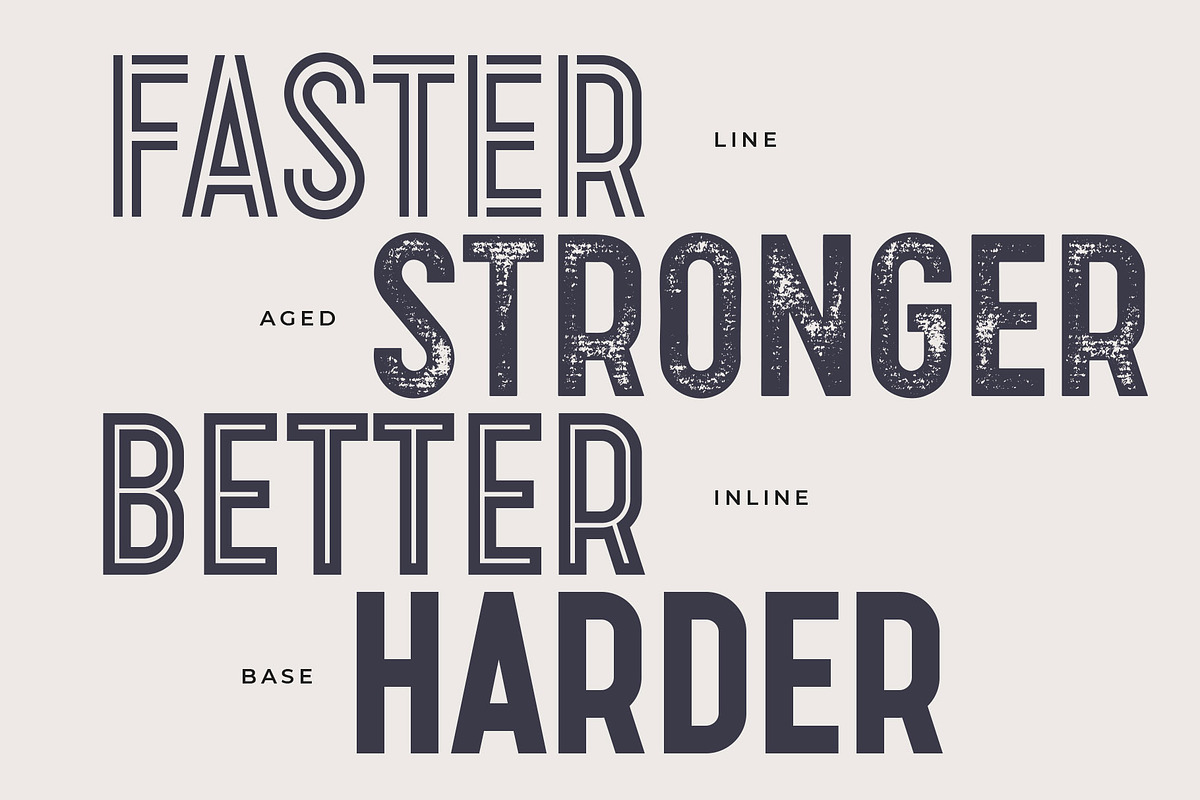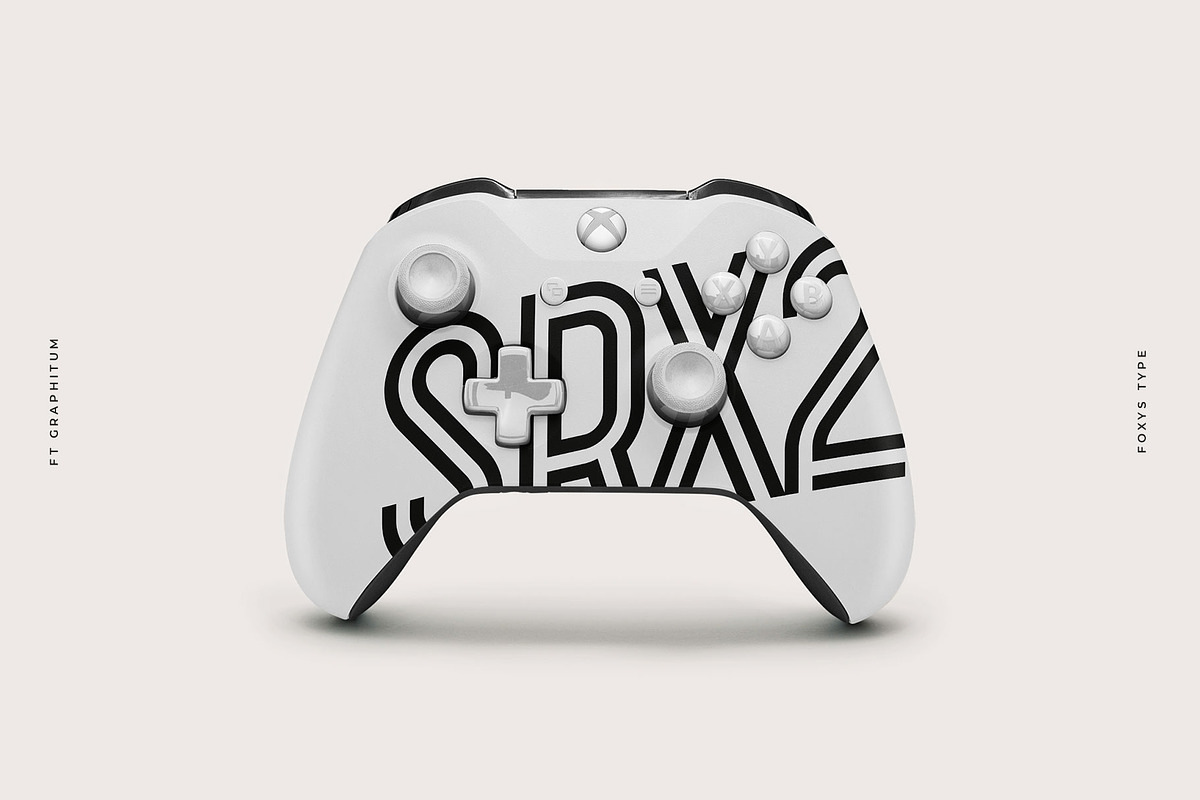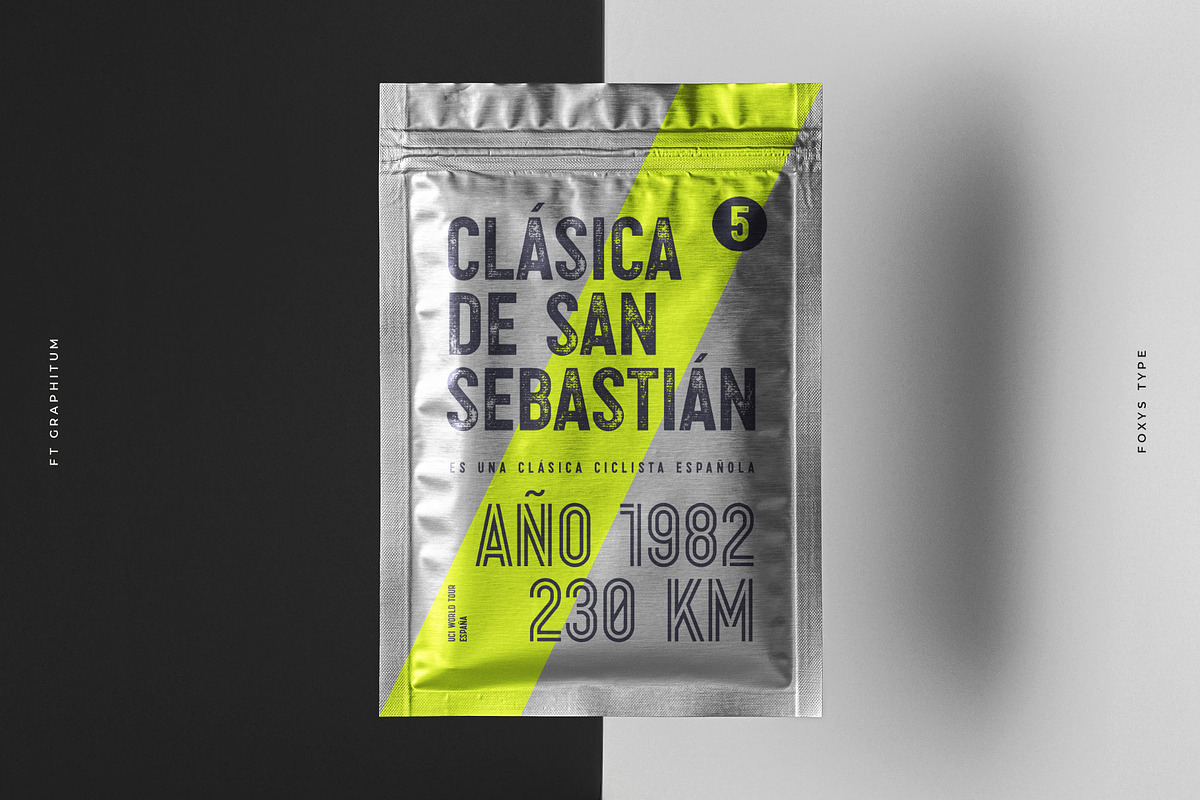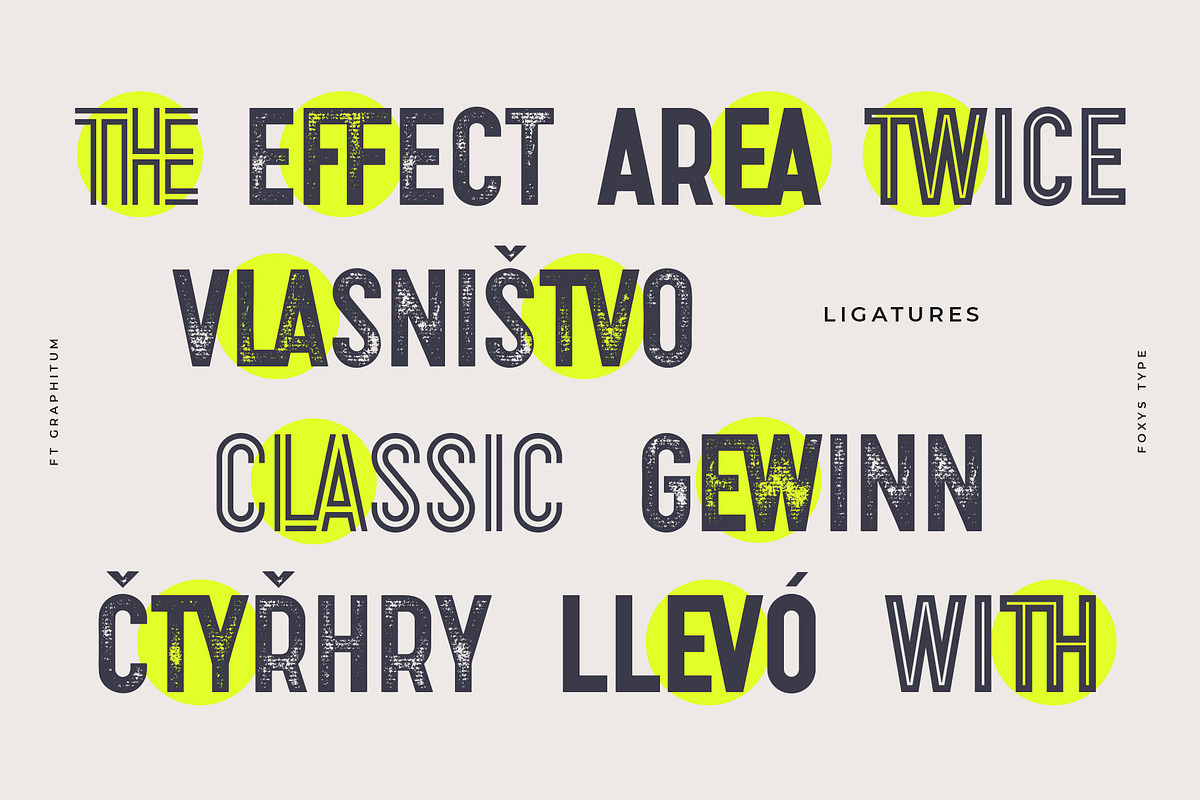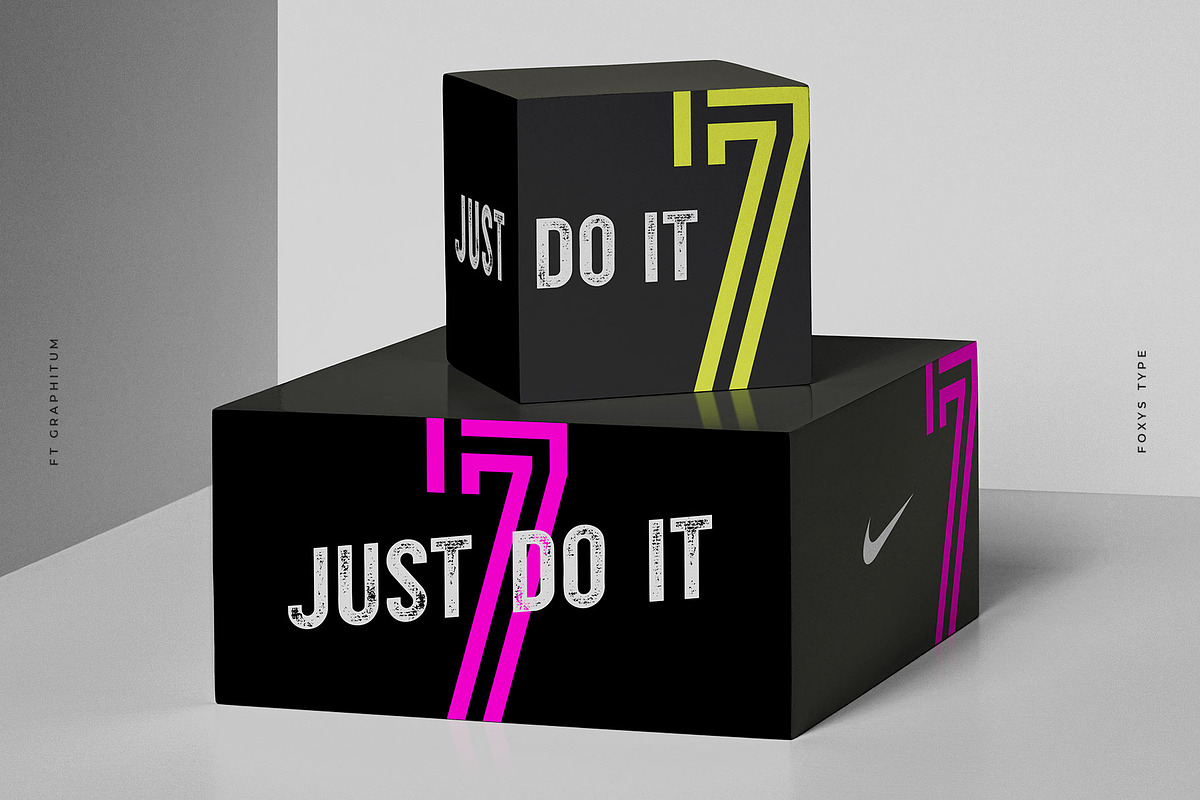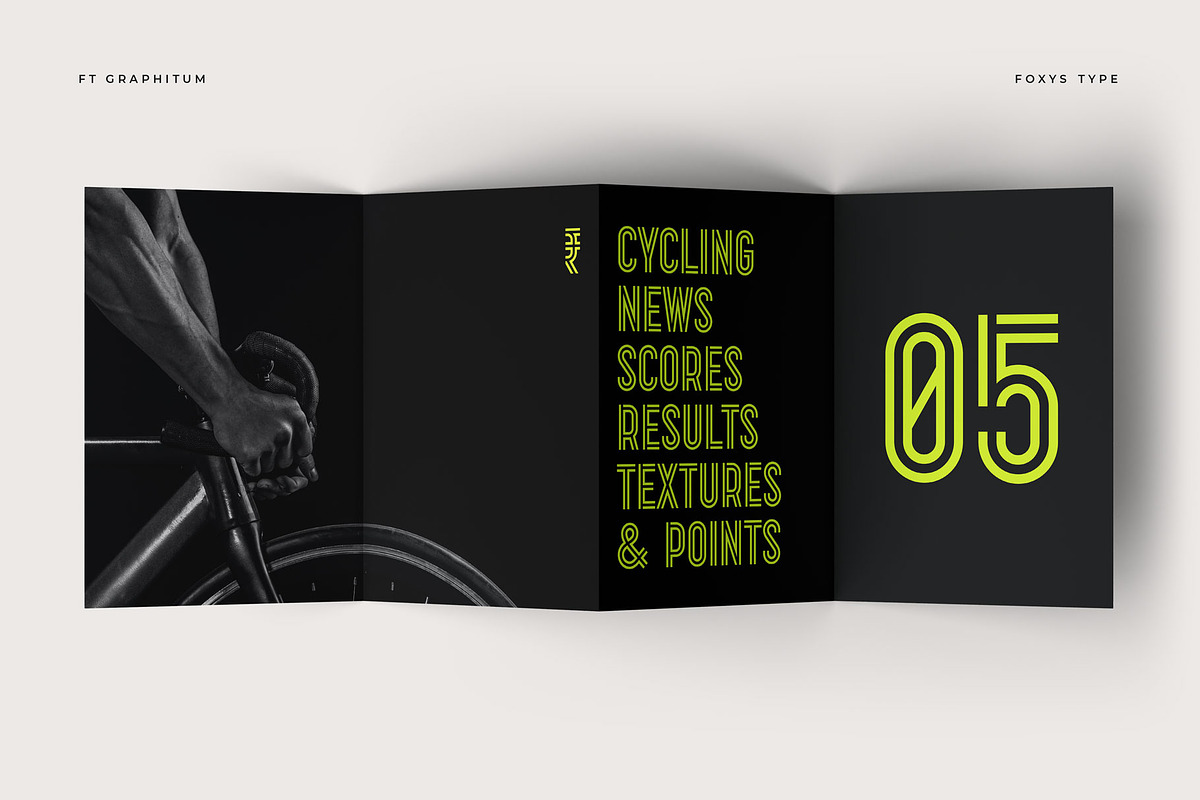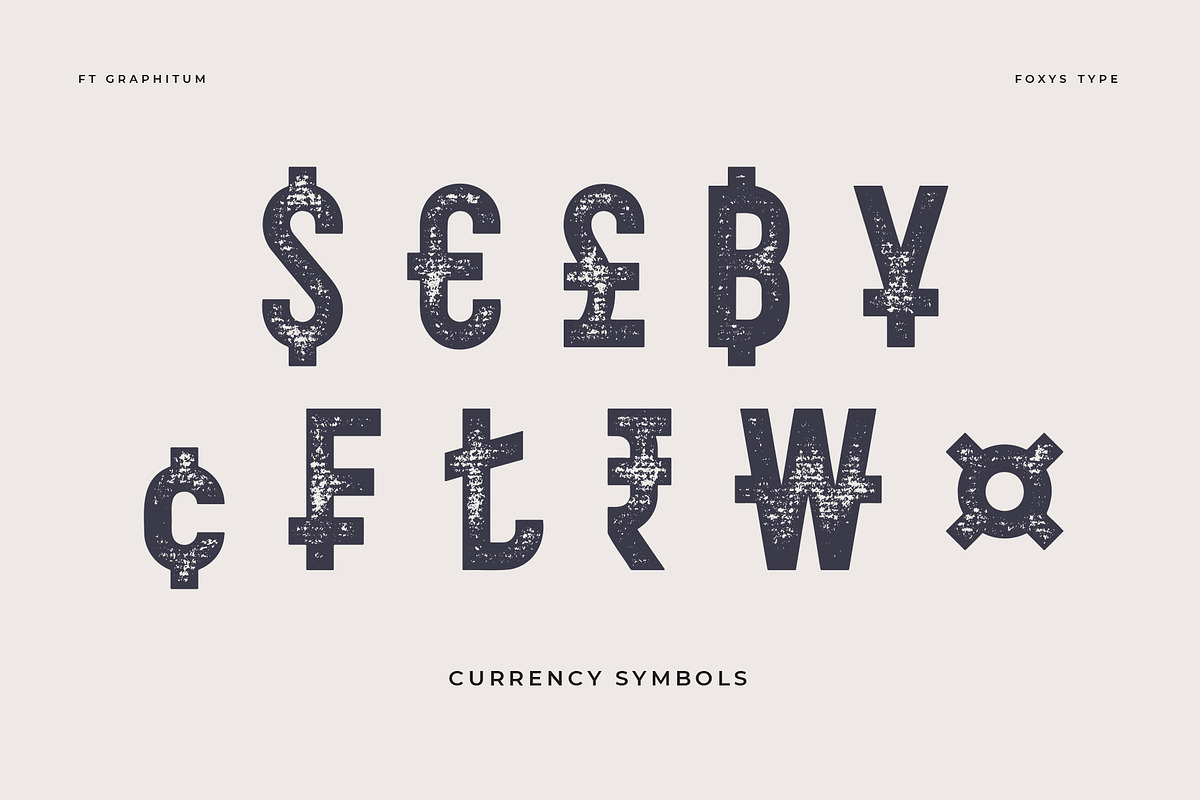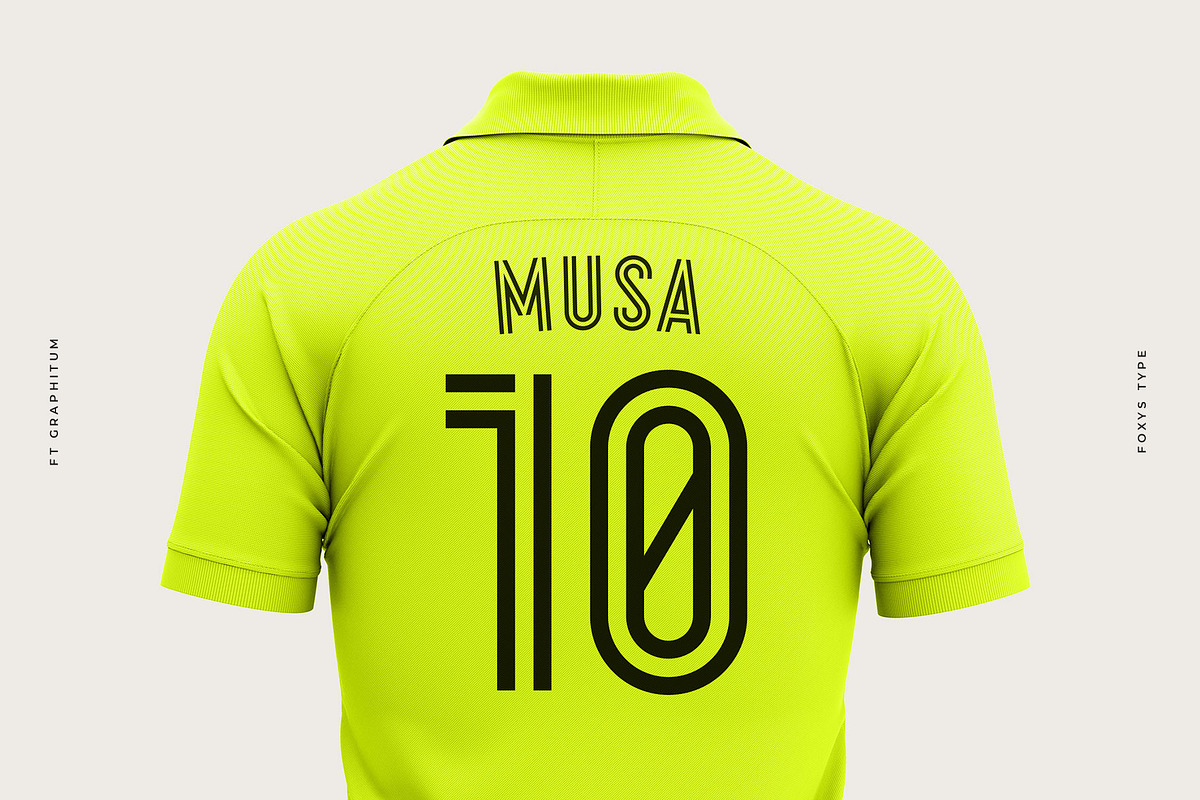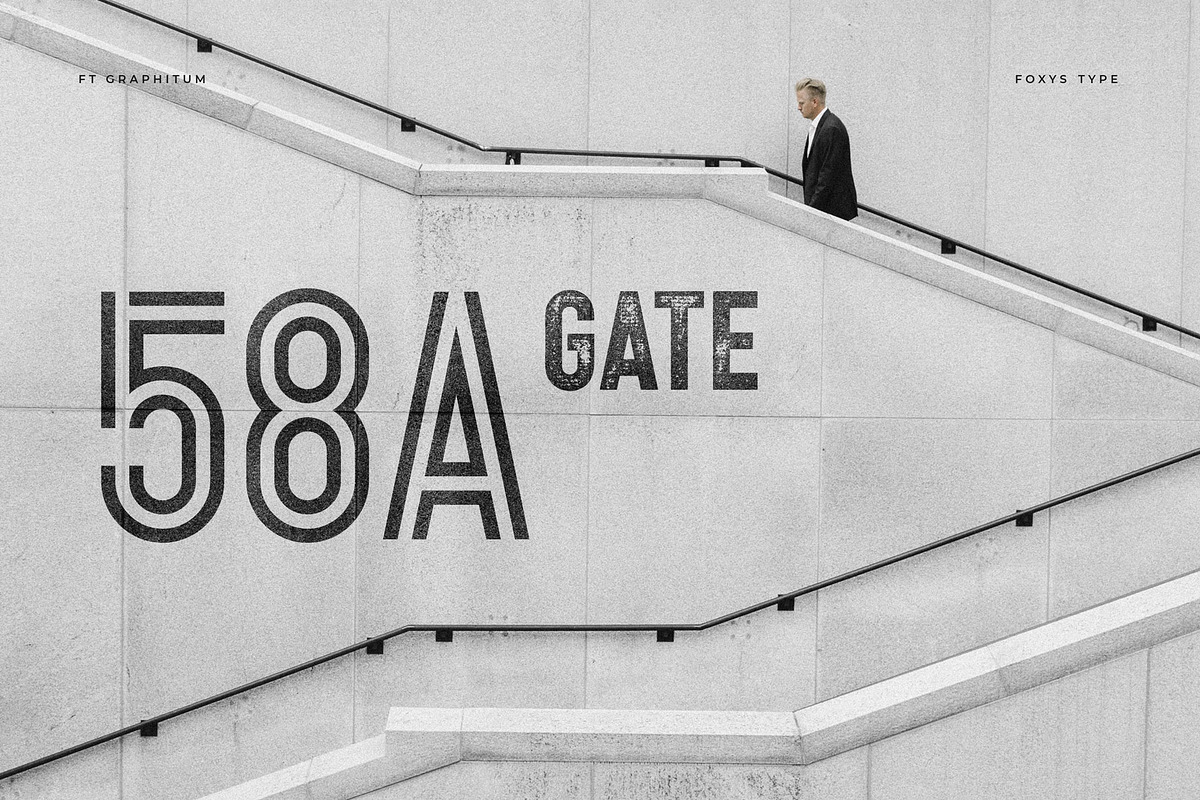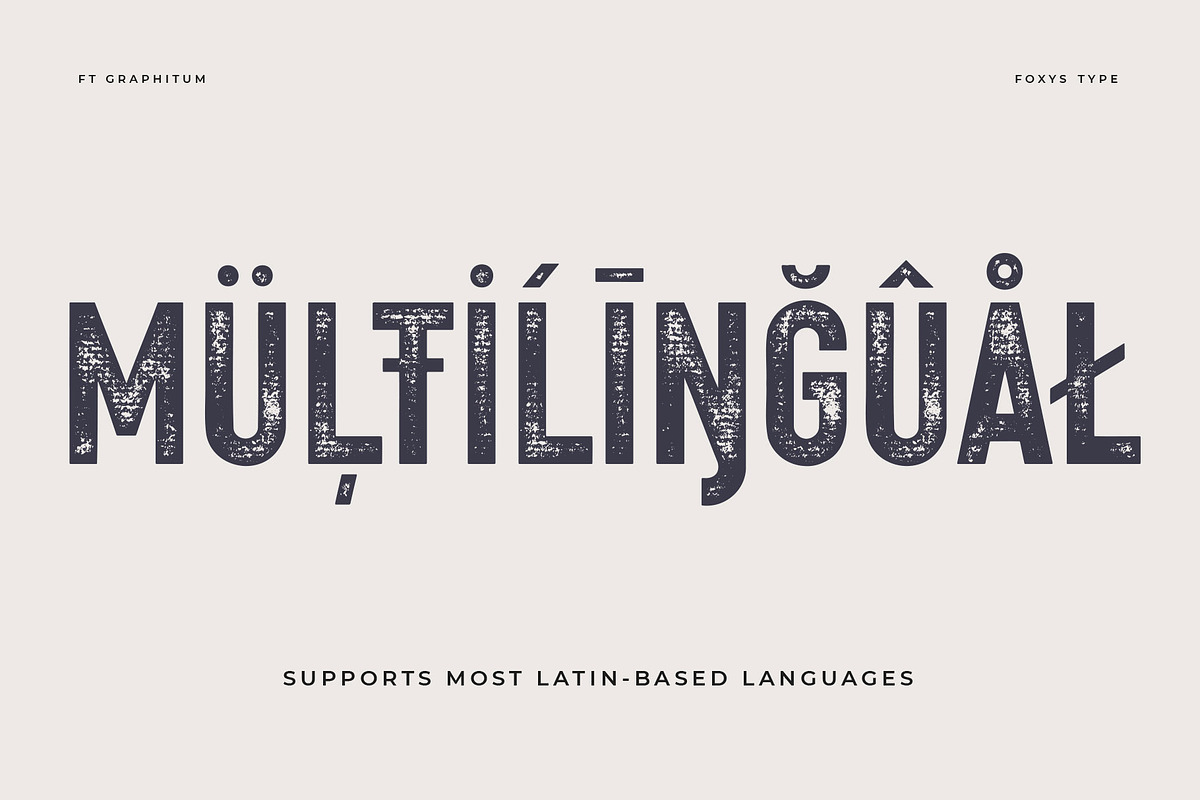
Graphitte Typeface
GRAPHITTE
This is a powerful graphic rough sans-serif typeface with four different styles. Two linear, one with an aged texture and one basic, for your experiments. It makes a bold impression, feels like a strong simple typeface. Looks great in short inscriptions, headlines, posters.
MÜĻŤIĹĪŊĞÛÅŁ
Graphitte supports most Latin-based languages.
LIGATURES
Yeah, the typeface has ligatures. Change letters to ligatures through the glyph panel Glyphs in Adobe applications.